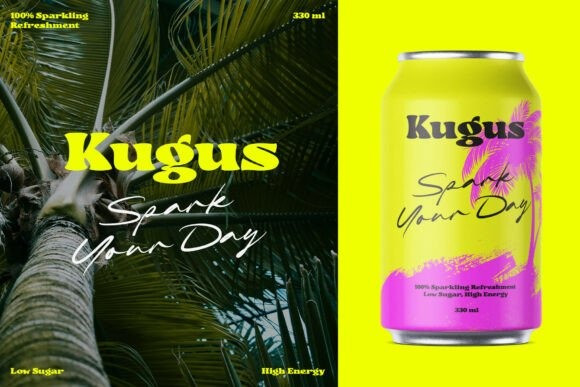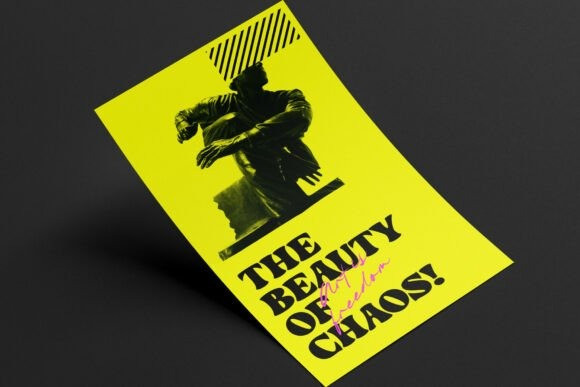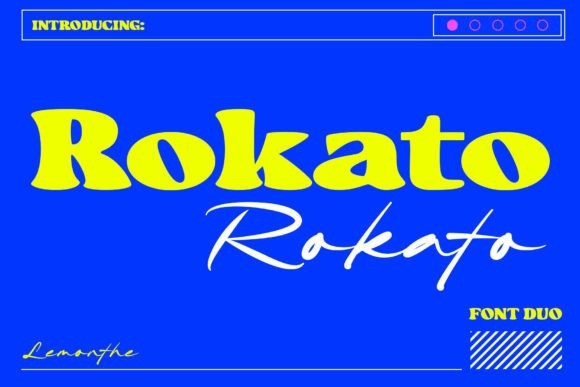
Rokato Font Duo is a versatile font duo that seamlessly blends a bold retro-style display with a smooth, casual script. This dynamic pairing creates the perfect balance of strength and elegance, making your designs stand out while maintaining a friendly and approachable feel.
With its playful yet confident character, Rokato is ideal for a wide range of creative projects. Use it for logos, branding, packaging, posters, social media graphics, merchandise, or digital content to achieve a unique and professional look. The bold display font adds impact and personality, while the casual script introduces charm and fluidity, giving your work a handcrafted touch.
By combining vintage inspiration with modern usability, Rokato offers designers the flexibility to mix and match styles with ease. Whether you’re aiming for eye-catching headlines, stylish branding, or cozy lifestyle designs, Rokato delivers a lighthearted yet character-rich finish every time.